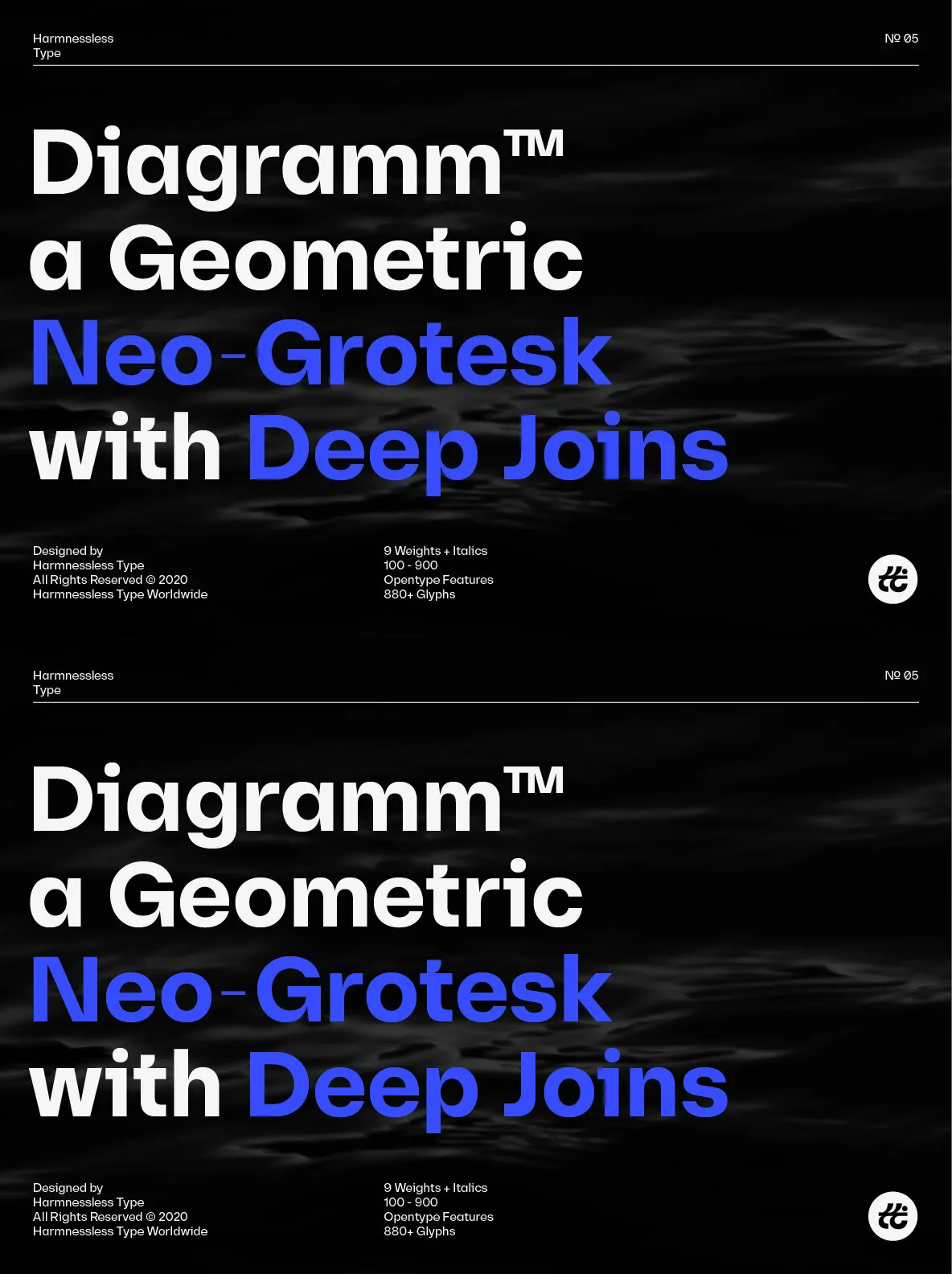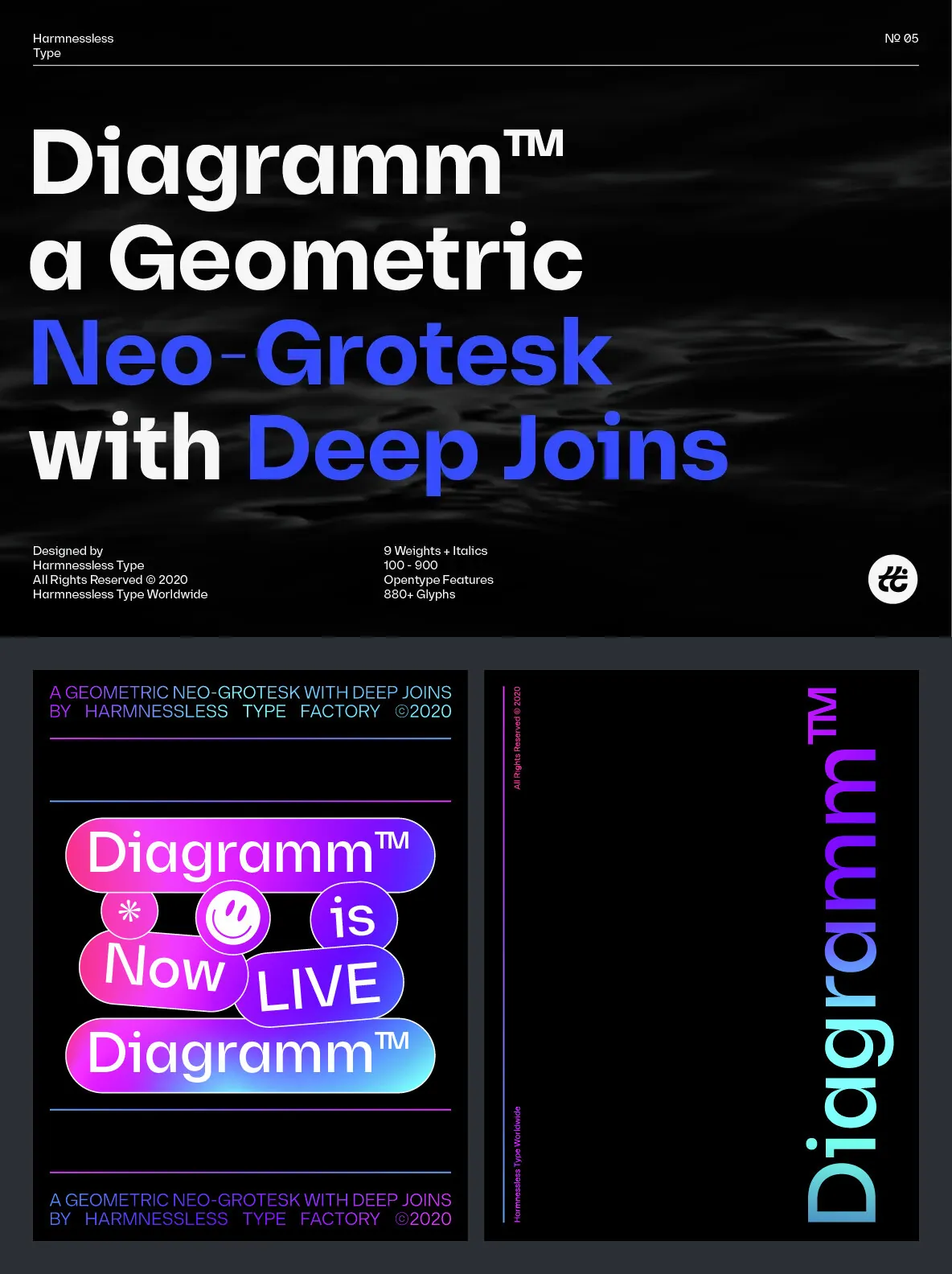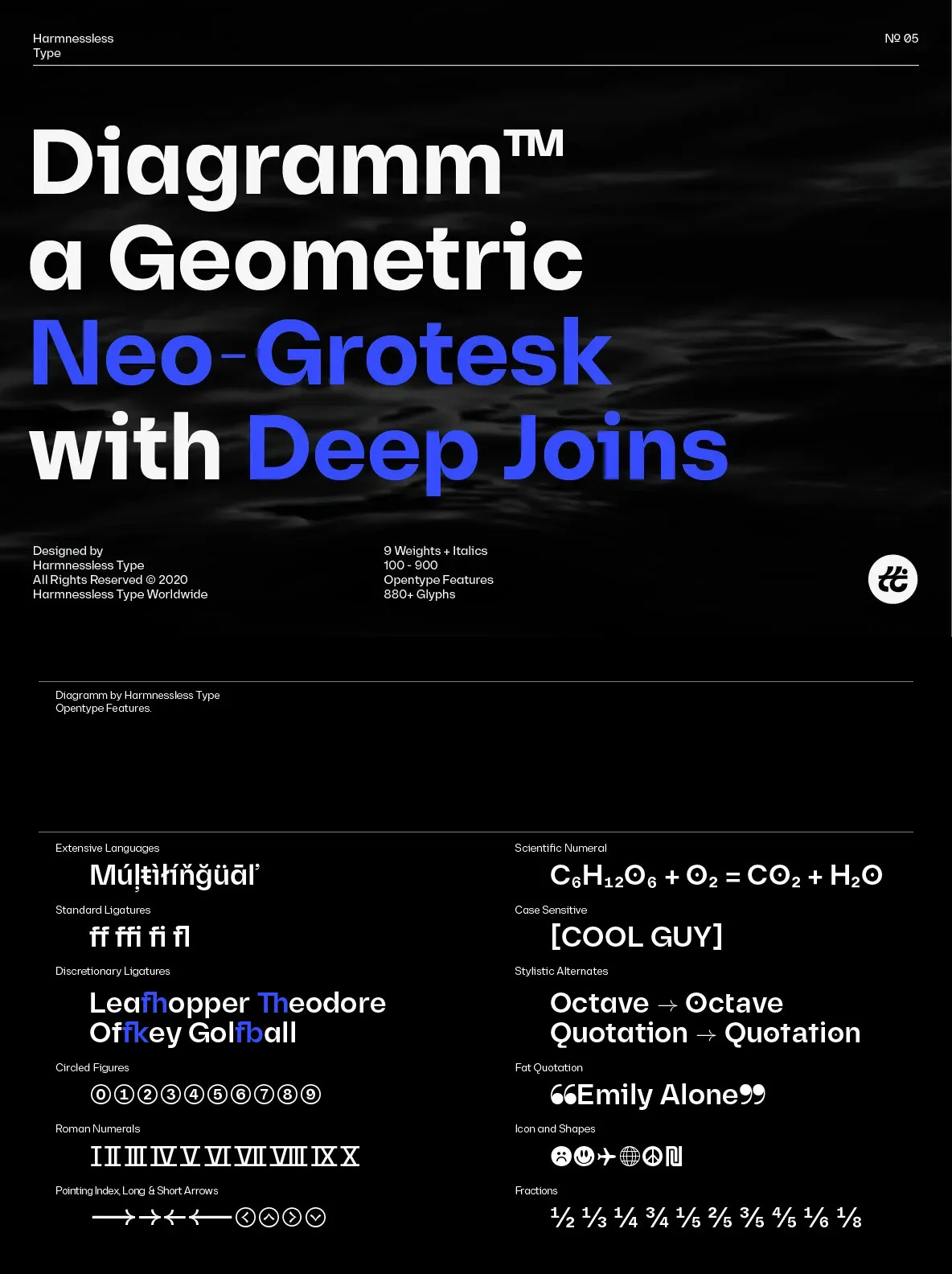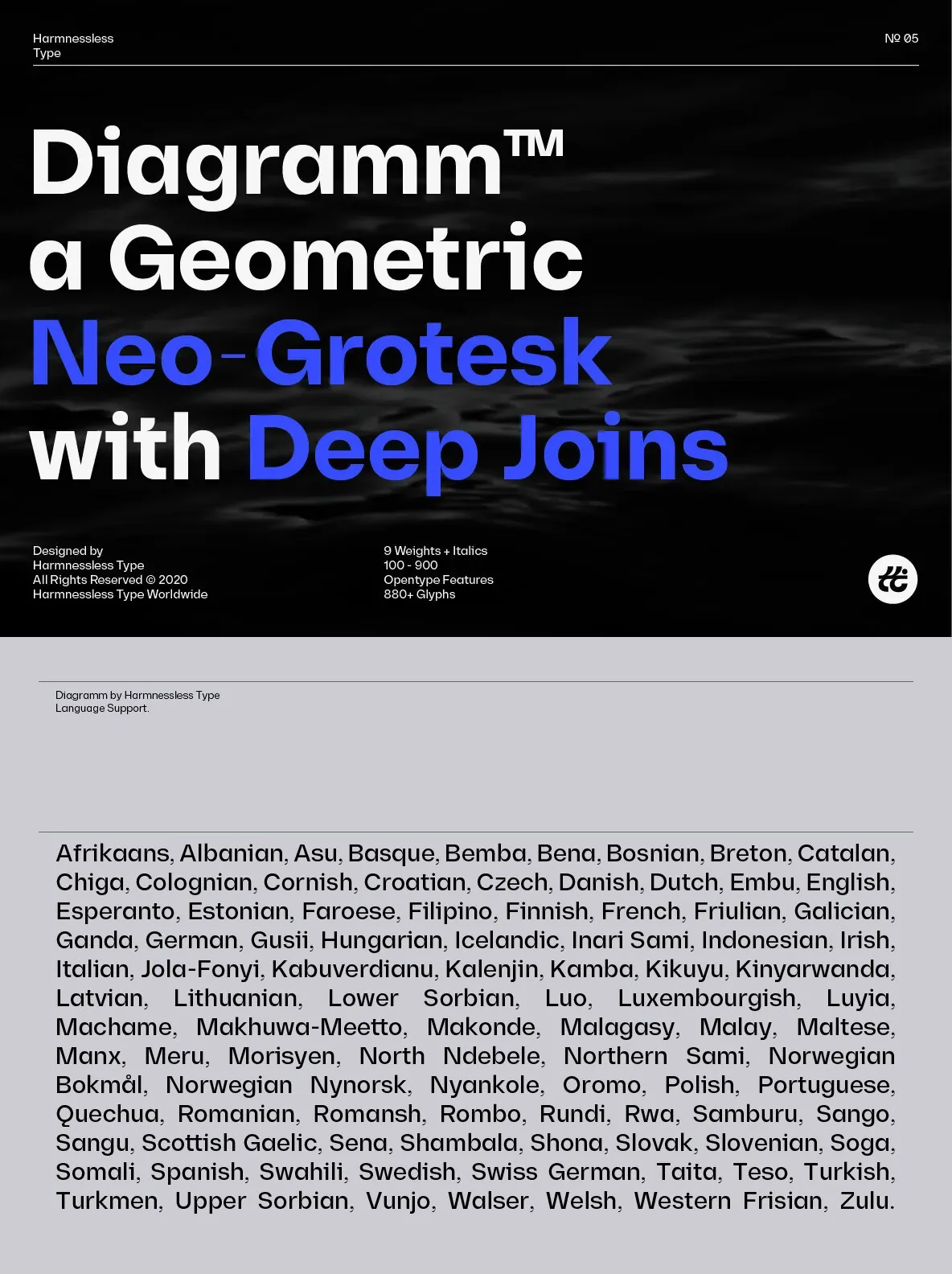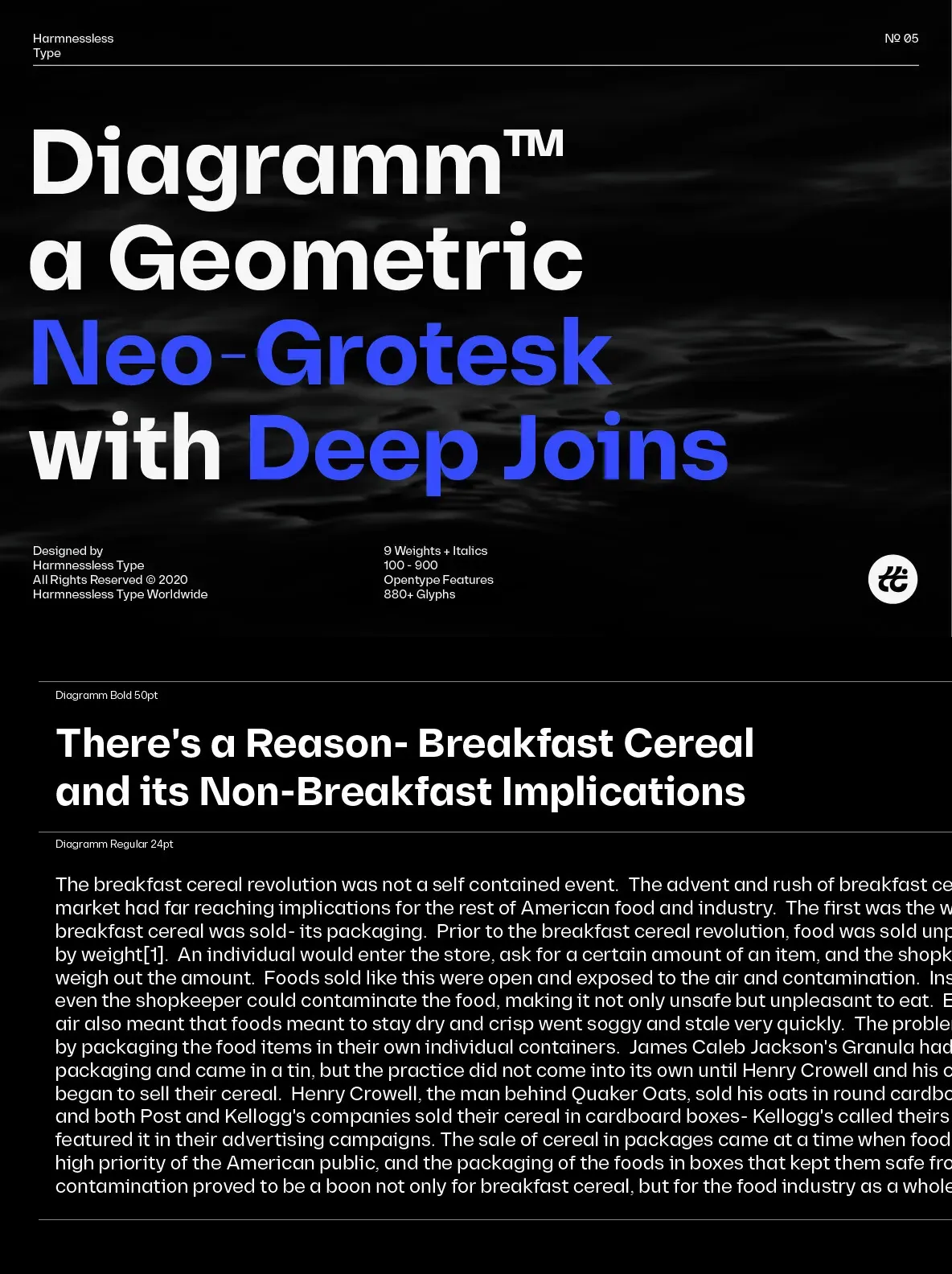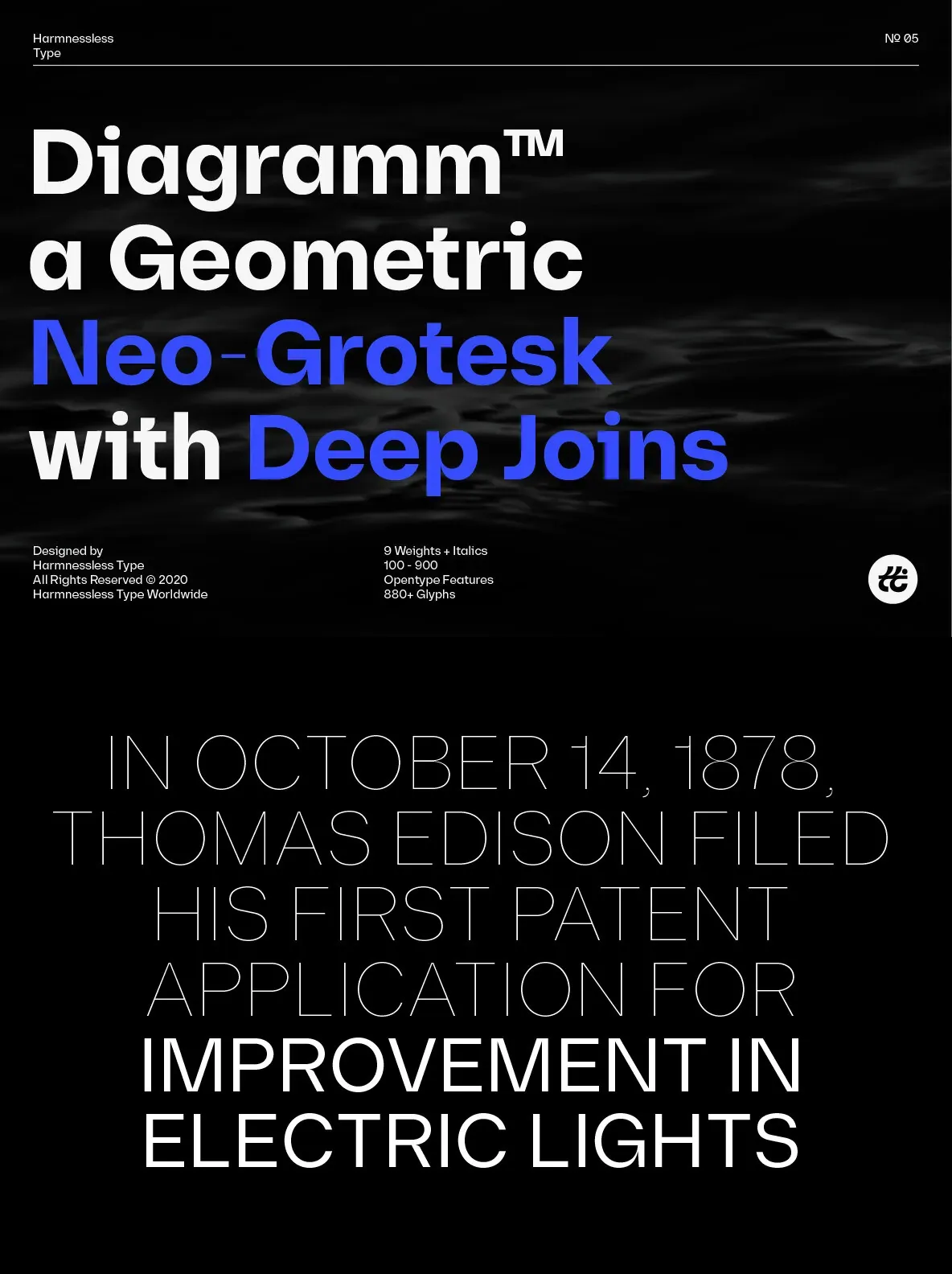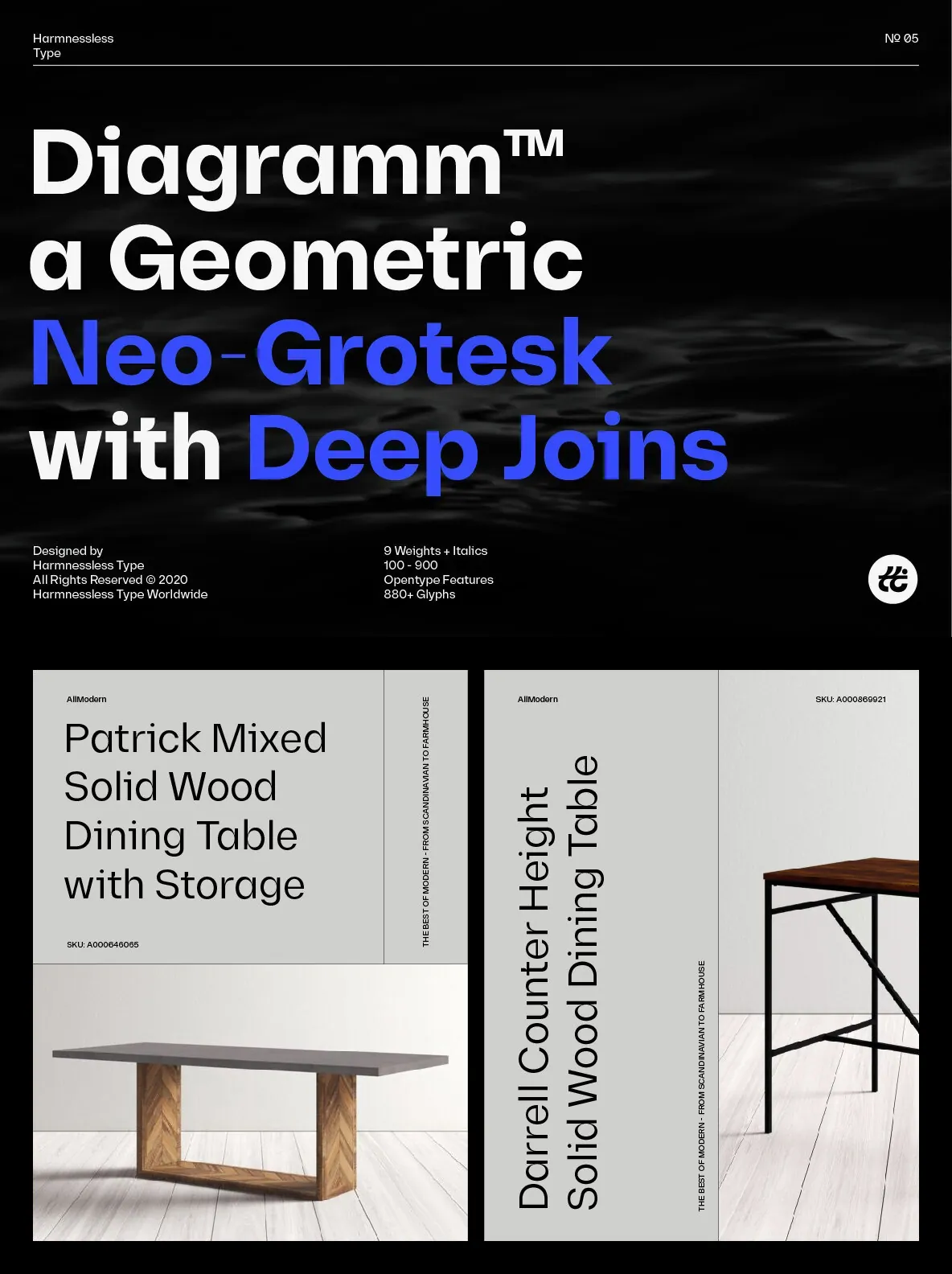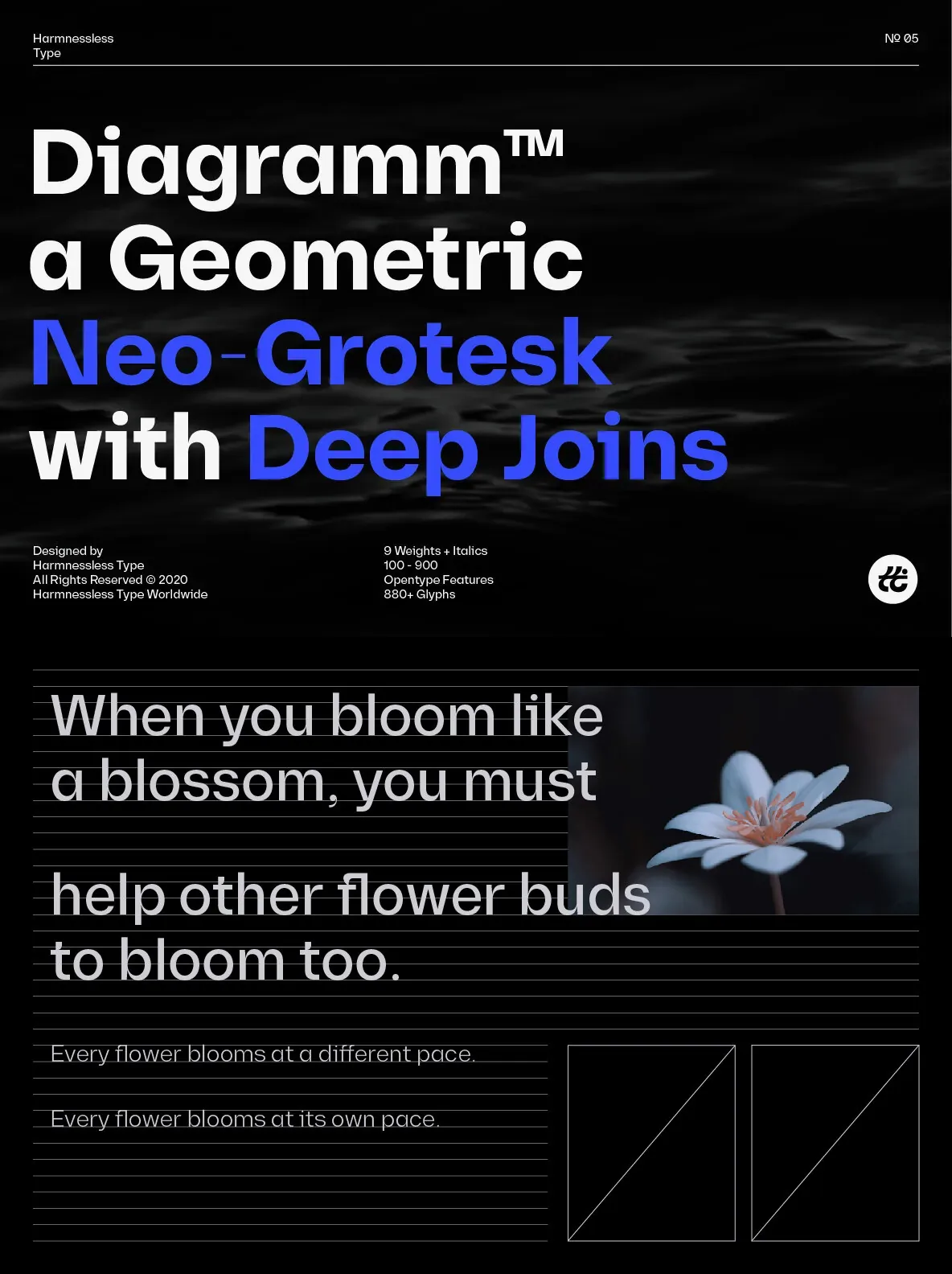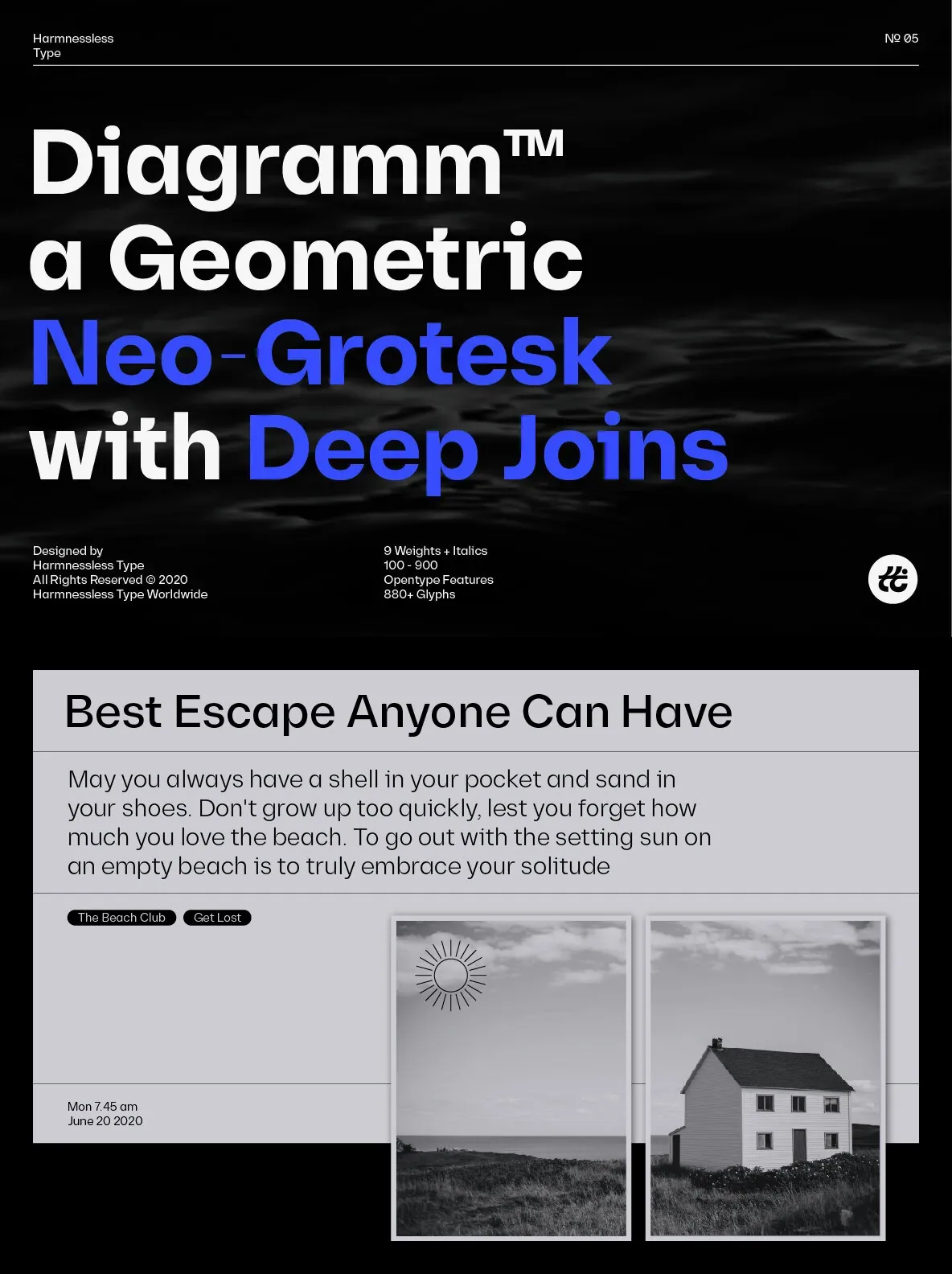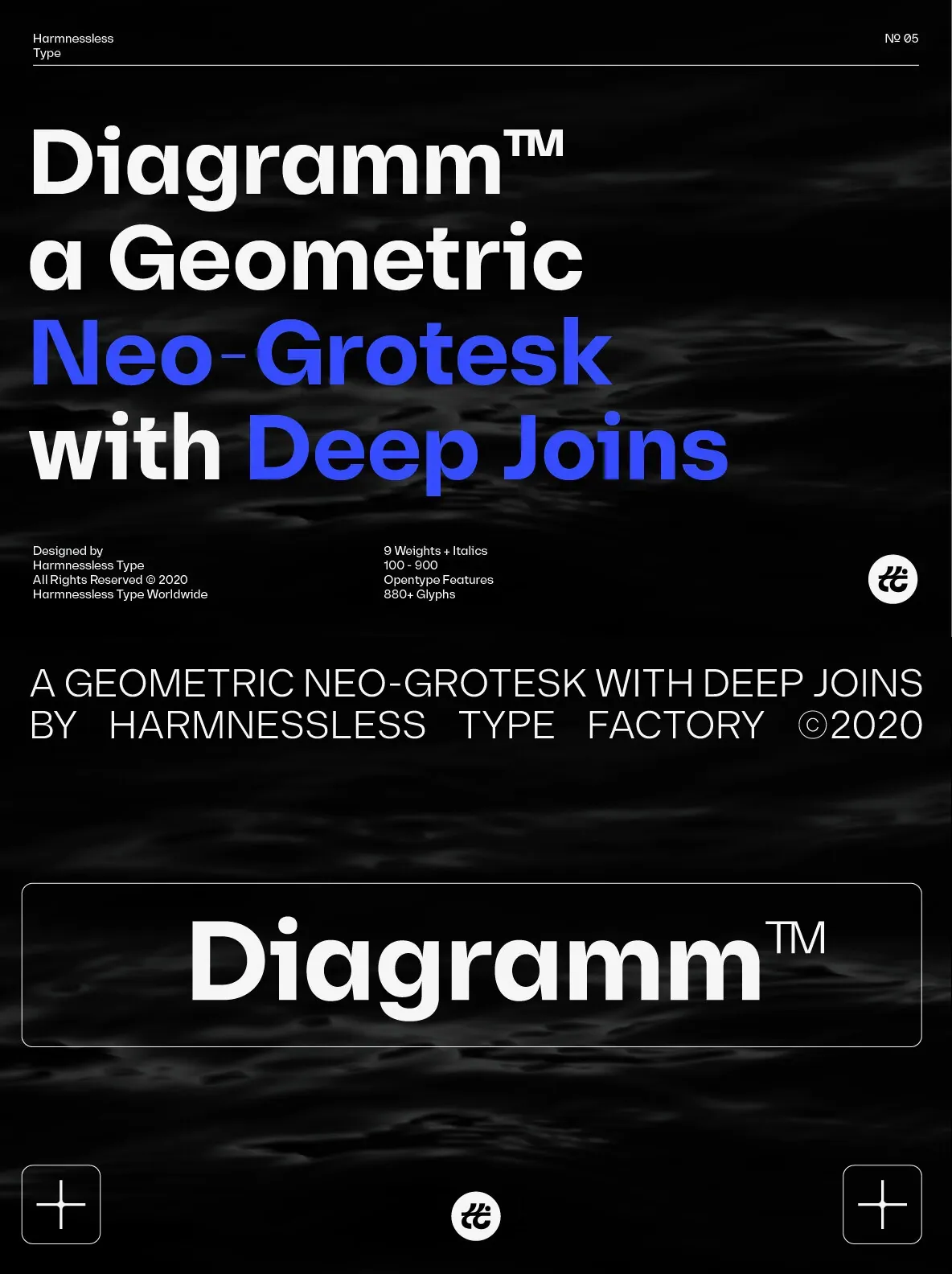
Diagramm Font
Diagramm designed by HarmnesslessType is a geometric Neo-Grotesk with deep and small joins. It comes in 18 weights, 9 uprights from Thin to Black, and its italics. Diagramm may look familiar but has a modern and contemporary feel at the same time.
It supports all European Latin languages and it includes OpenType features like ligatures, old-style figures, or case sensitive forms among others.